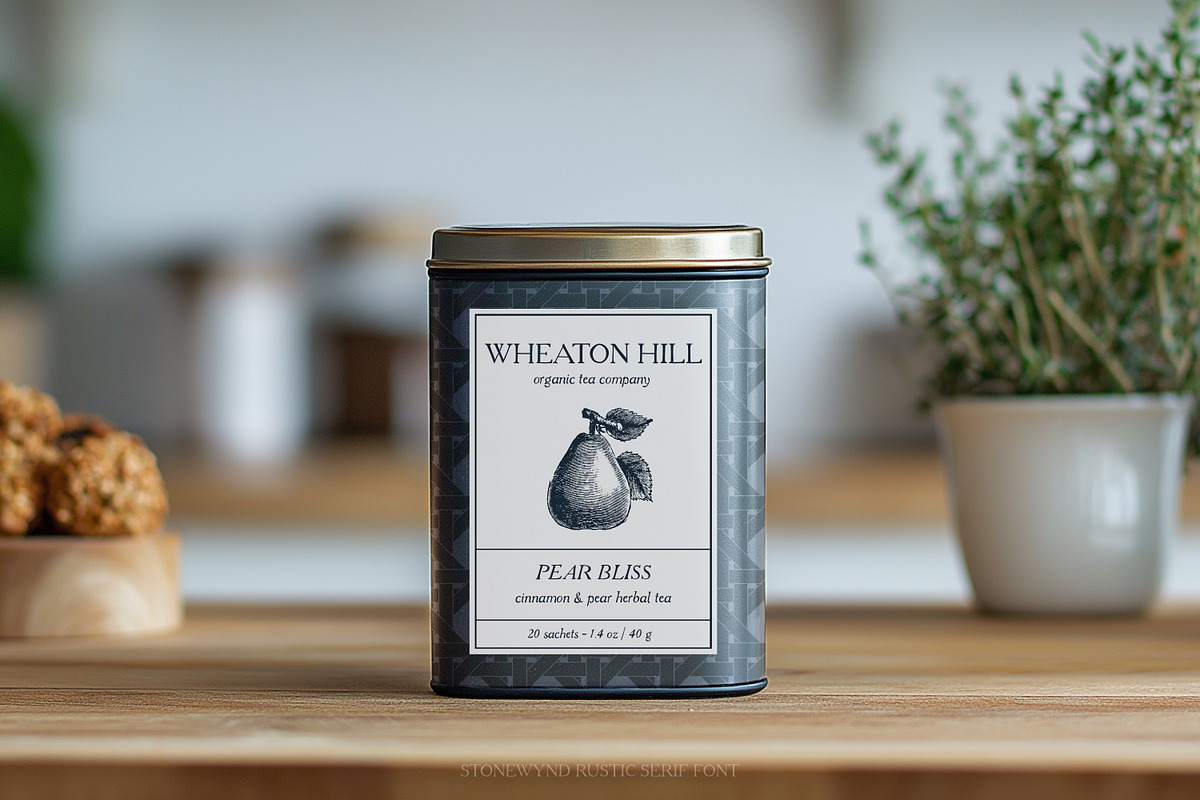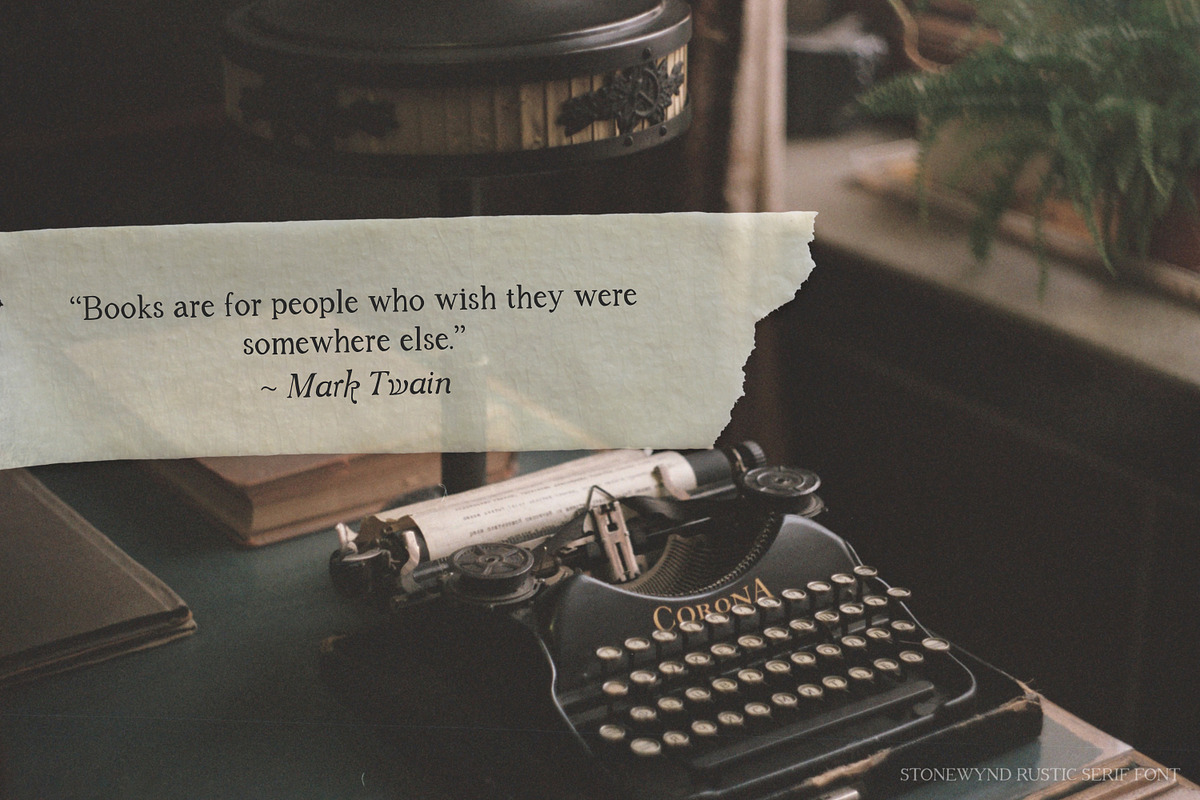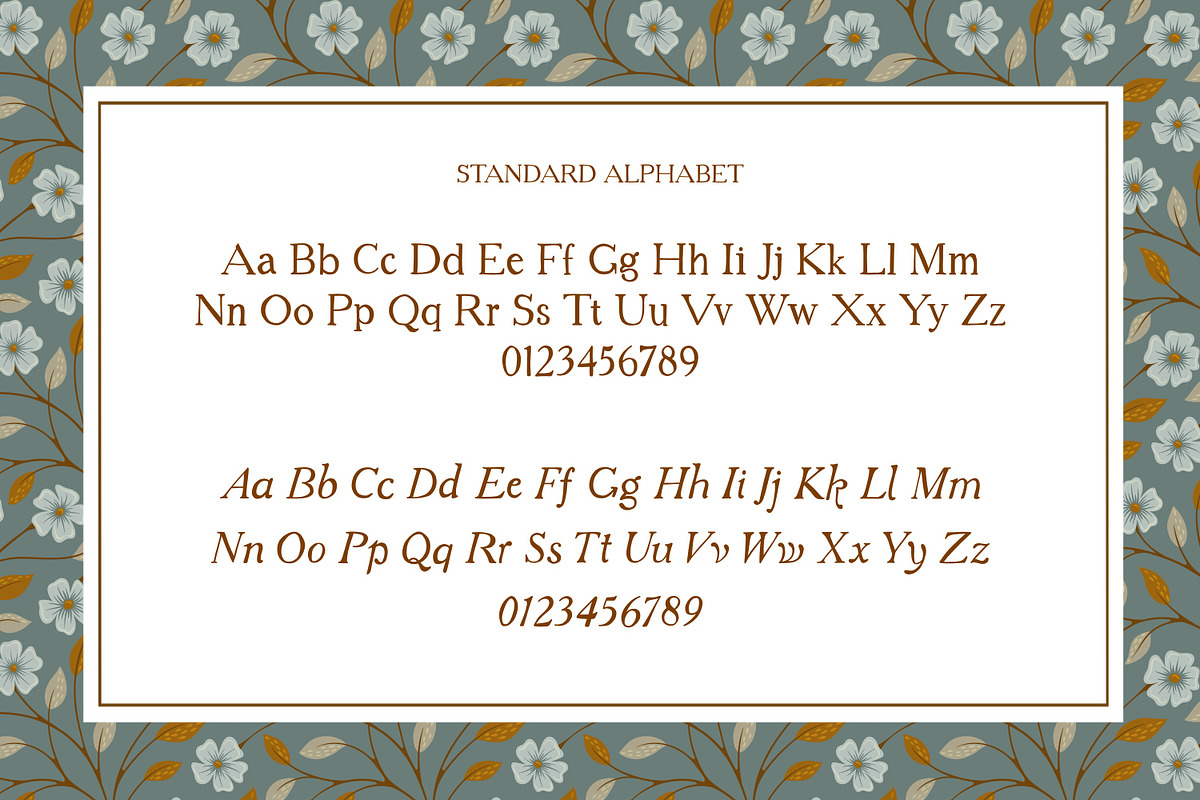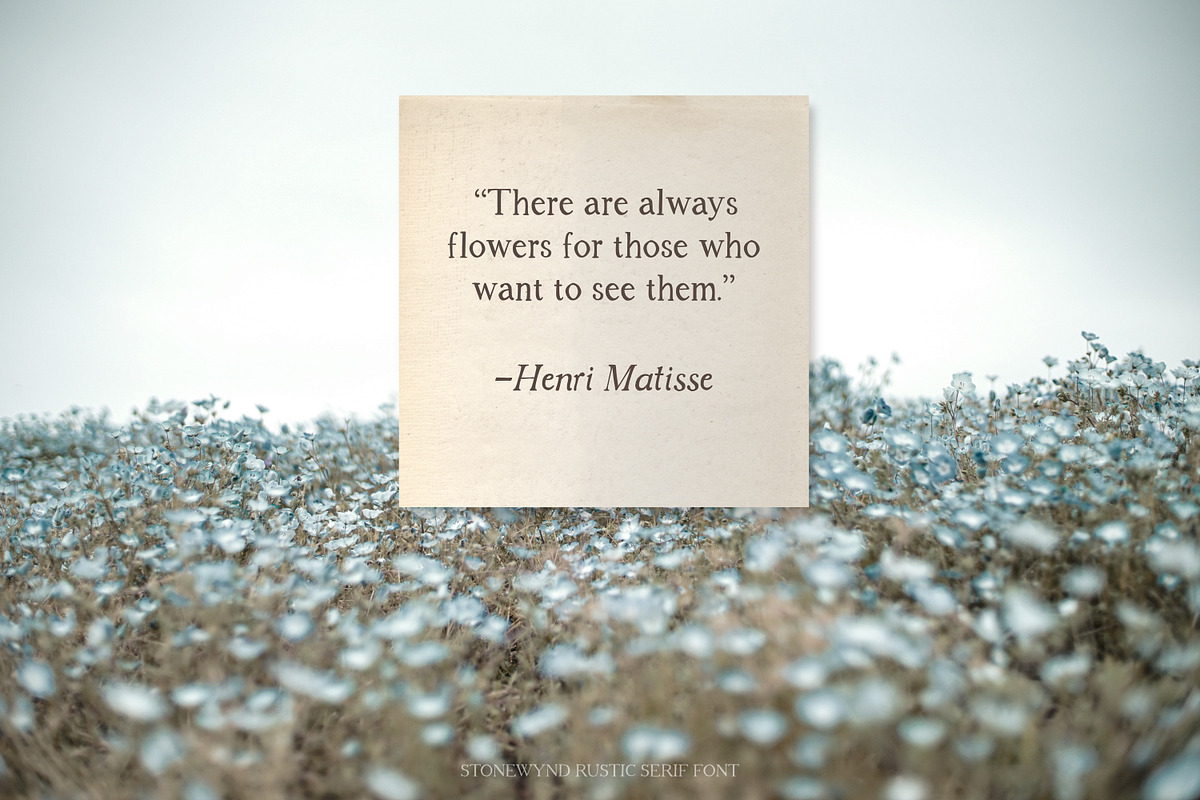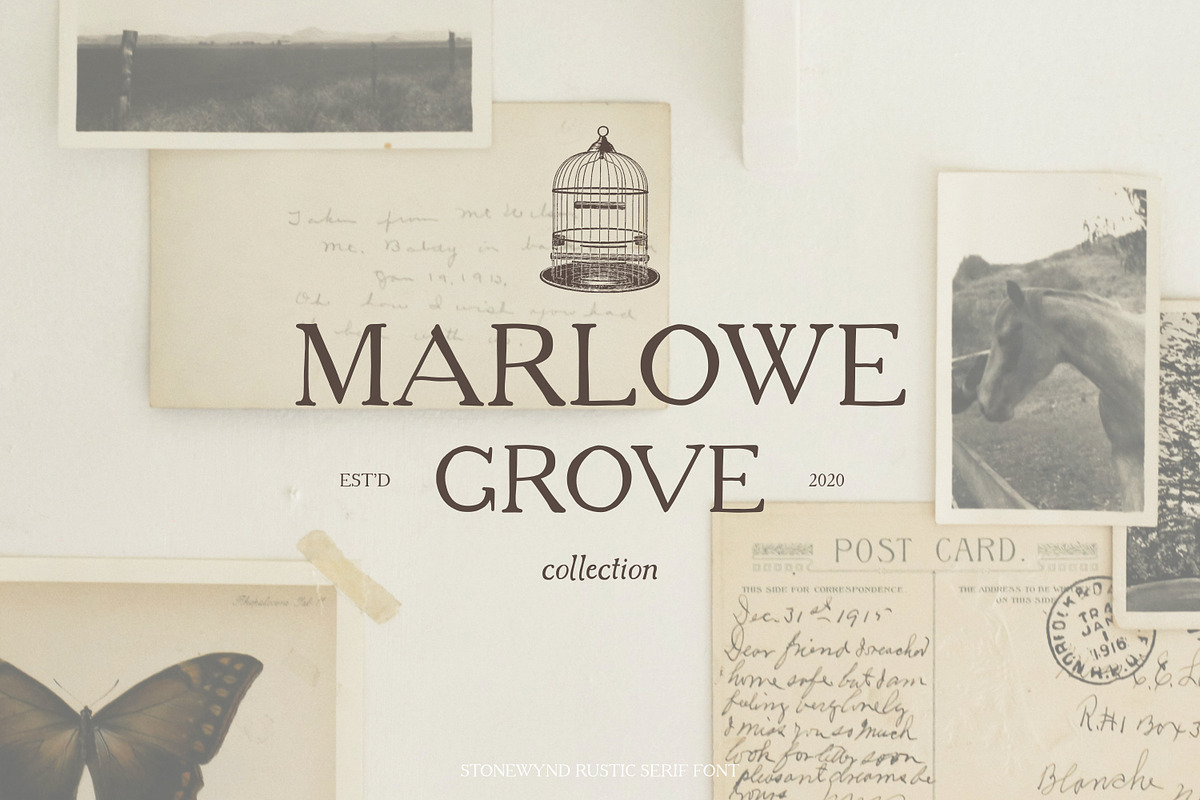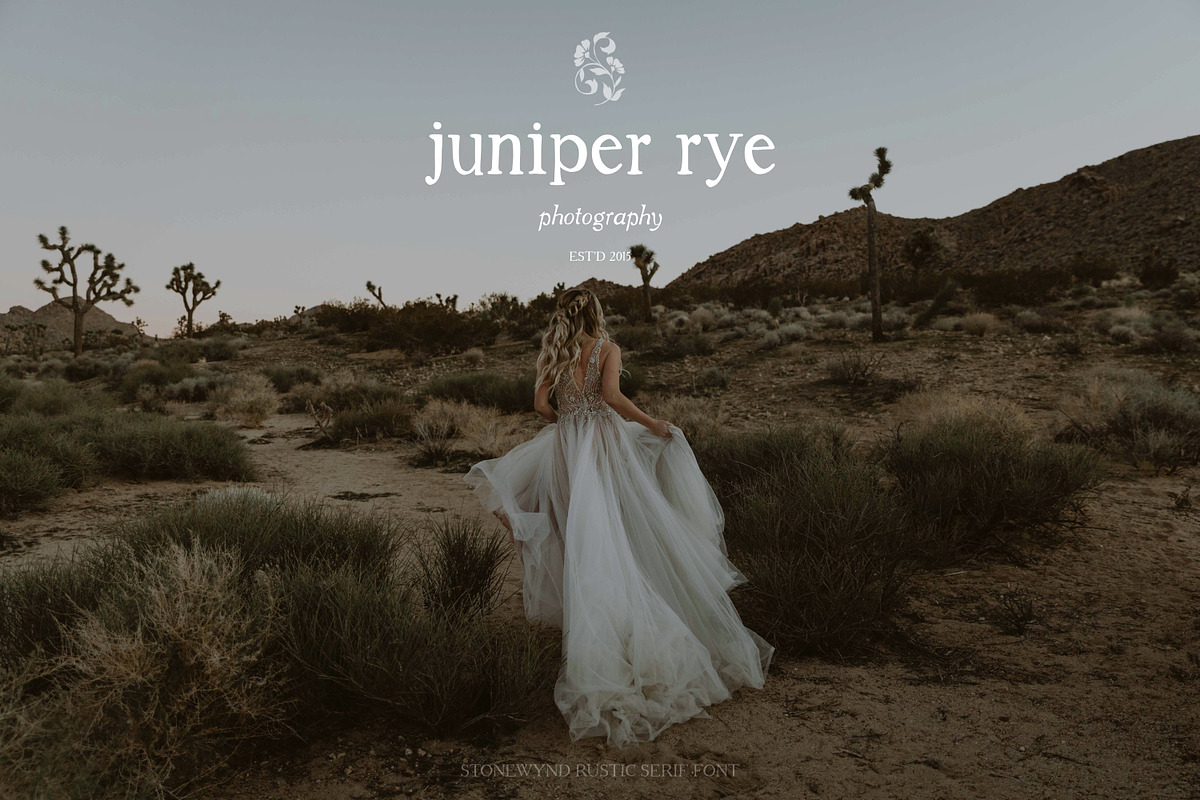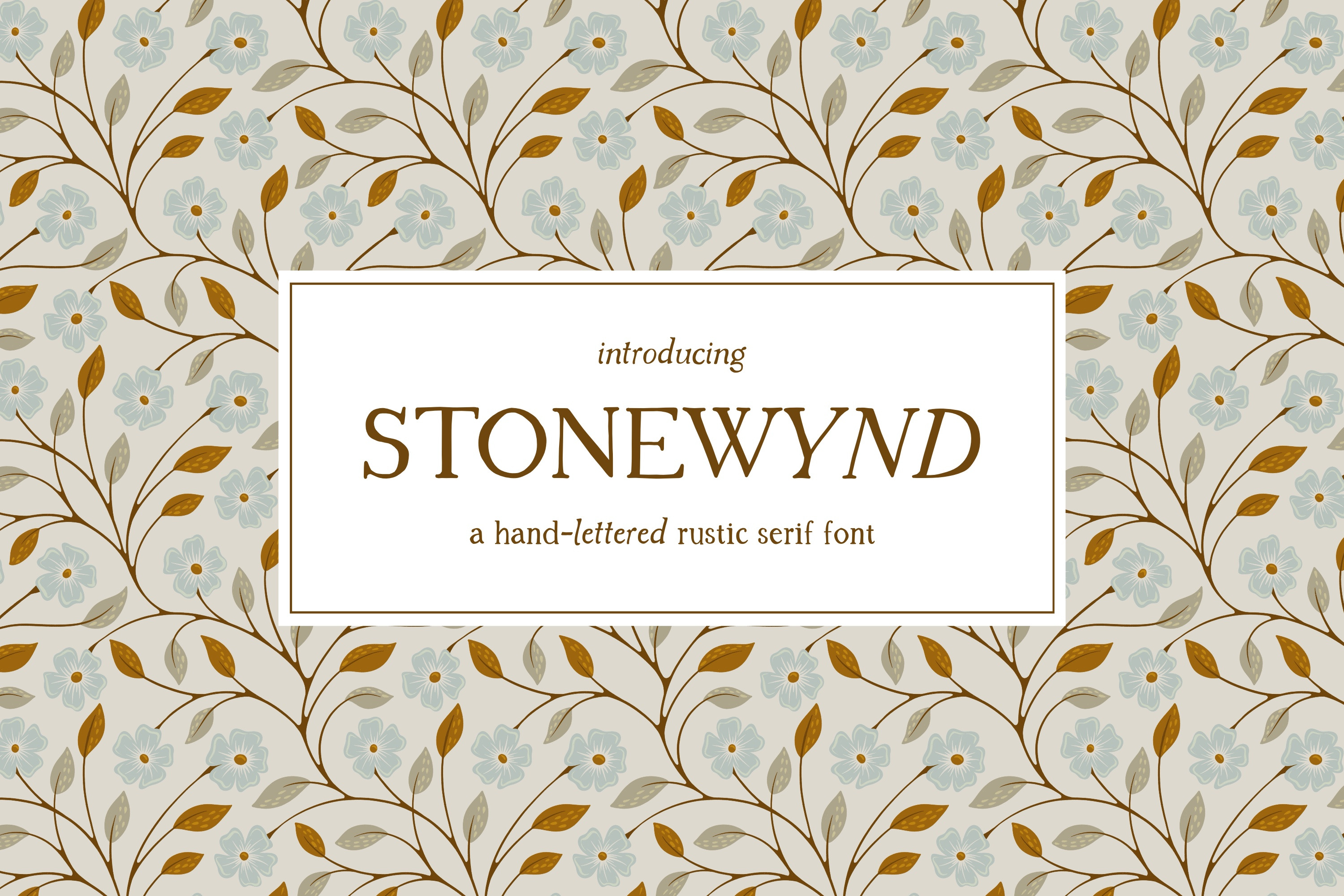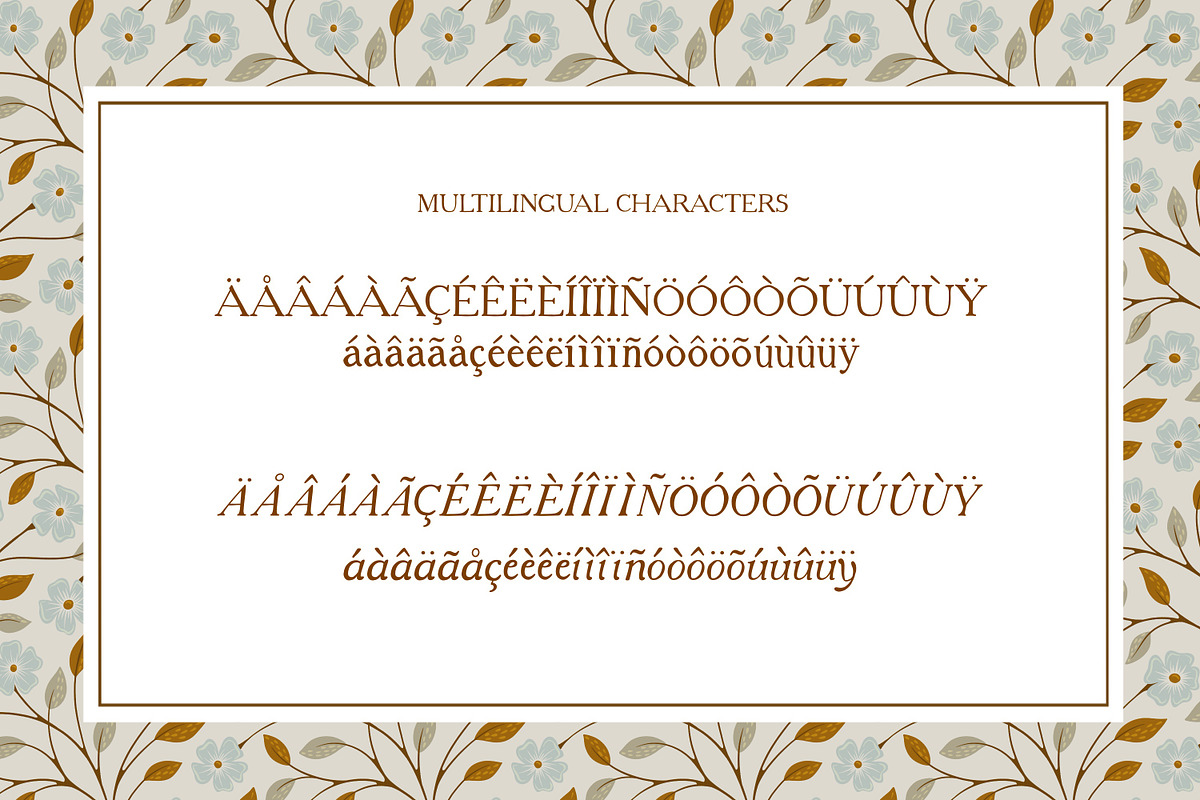
Stonewynd Rustic Serif Font
Introducing the hand-lettered Stonewynd font duo. Stonewynd font is a multilingual vintage-inspired serif font with imperfect edges to add a rustic touch available in regular and italic options.
These two fonts are perfect for clothing, packaging, mugs, home decor, social media marketing, logos, and more.